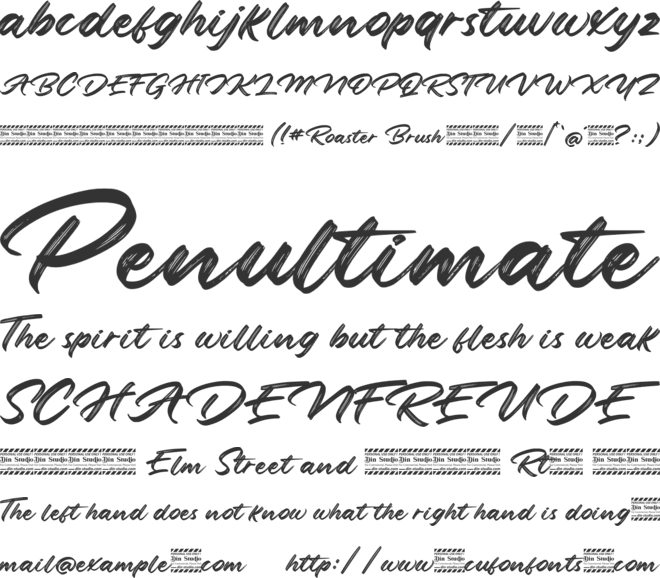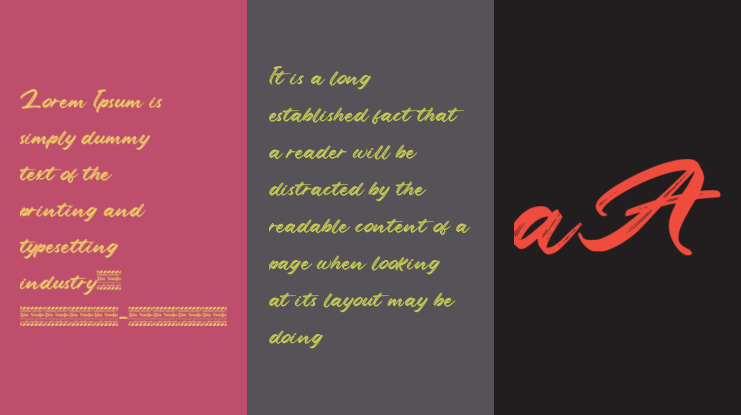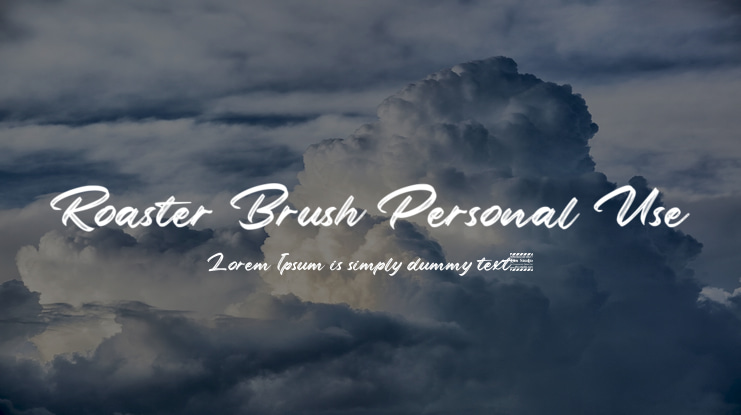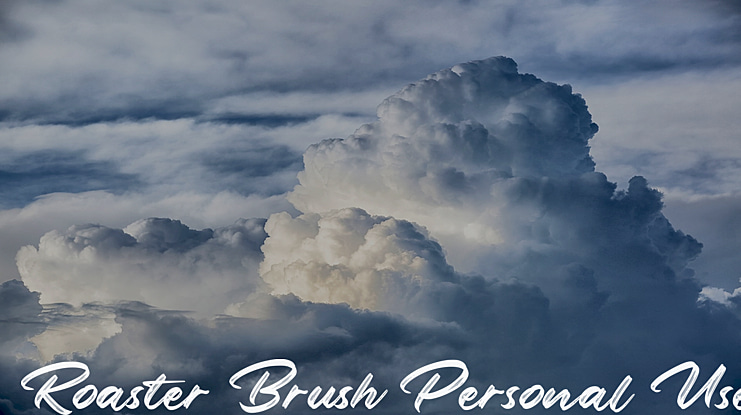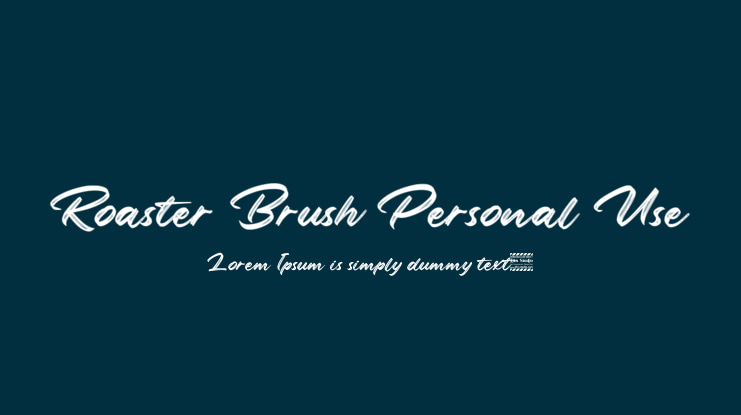
Roaster Brush Personal Use Font
Roaster Brush is a elegant handwritten font. The handwritten combined with brush font will make your design project more attractive. Made for any professional project branding. It is the best for logos, branding and quotes.
Every letter has a unique and beautiful touch.
Roaster Brush Personal Use font preview